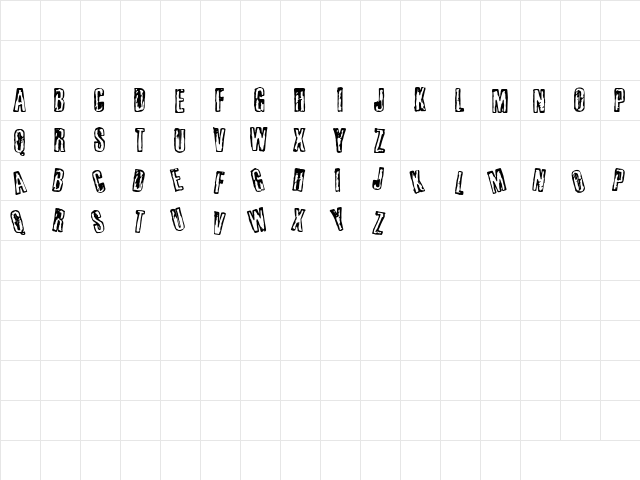
busseta Regular Font Preview
busseta Regular
busseta Regular Font Details
Design Context for busseta Typeface
busseta is a composed and adaptable typeface that performs quietly and consistently across a wide range of design contexts.